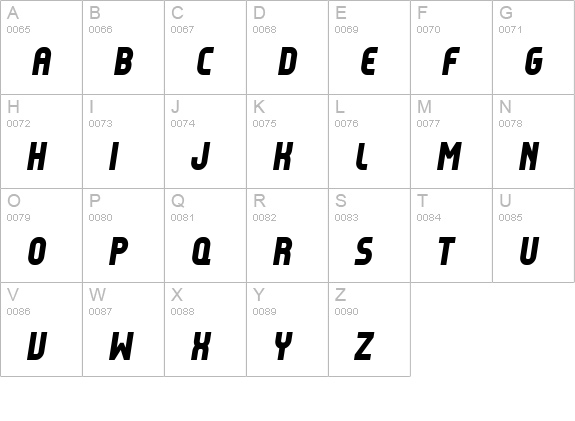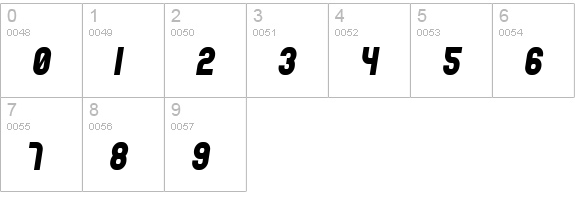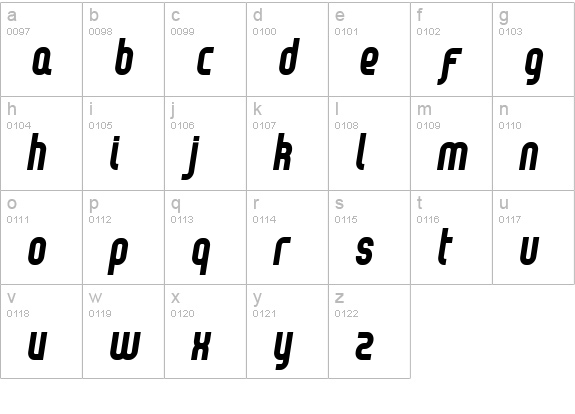
Reflex - Black Italic Font Details
Reflex - Black Italic is a maximum-weight, dramatic, italic variant in the Reflex typeface family \xE2\x80\x94 well suited to maximum-impact headlines, posters, and packaging.
Reflex - Black Italic is a stunning and versatile font that exudes a sense of elegance, sophistication, and modernity. Its sleek and streamlined design, paired with its strikingly bold and italicized letterforms, make it the perfect choice for eye-catching headlines, captivating logos, and cutting-edge designs. With its strong and confident presence, Reflex - Black Italic commands attention and leaves a lasting impression. Every letter and character is meticulously crafted to convey a sense of strength and power, making it an ideal choice for projects that require a bold and impactful statement. Despite its undeniable beauty and high-quality design, Reflex - Black Italic is freely available to download at FontsMarket.com. This means that designers, artists, and creative individuals from all walks of life can access this remarkable font without any cost or limitations. Whether you are a professional graphic designer or a hobbyist enthusiast, Reflex - Black Italic is accessible to all, empowering you to bring your creative visions to life. So, whether you are working on a branding project, creating a captivating poster, or designing a striking website, Reflex - Black Italic is the go-to font that will elevate your work to new heights. Its versatility, boldness, and italicized form make it a truly exceptional choice for those who seek to make a statement and leave a lasting impression. Download Reflex - Black Italic for free at FontsMarket.com and unlock a world of possibilities. Let this font be your creative companion, and watch as your designs come to life with its powerful and captivating presence.